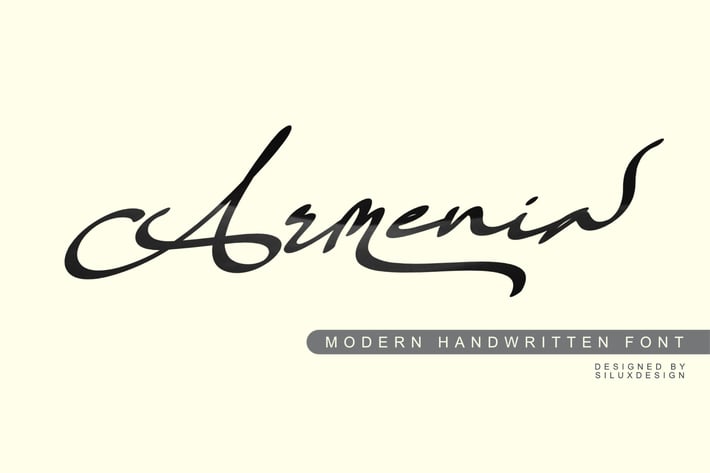
Armenia|Modern Handwritten Font
Introducing Armenia, a contemporary handwritten font that blends modern design with a personal touch. This font is perfect for adding a unique and stylish look to your projects. With its wide range of alternates, Armenia allows you to create a truly custom look. Whether you're designing a logo, poster, or social media graphic, this versatile font is sure to make your text stand out. Download Armenia today and add a touch of elegance to your designs!
Armenia is packed with features, including:
Alternate Characters: A variety of alternates to add flair and uniqueness to your text.
Multilingual Support: Supports multiple languages, making it suitable for global projects.